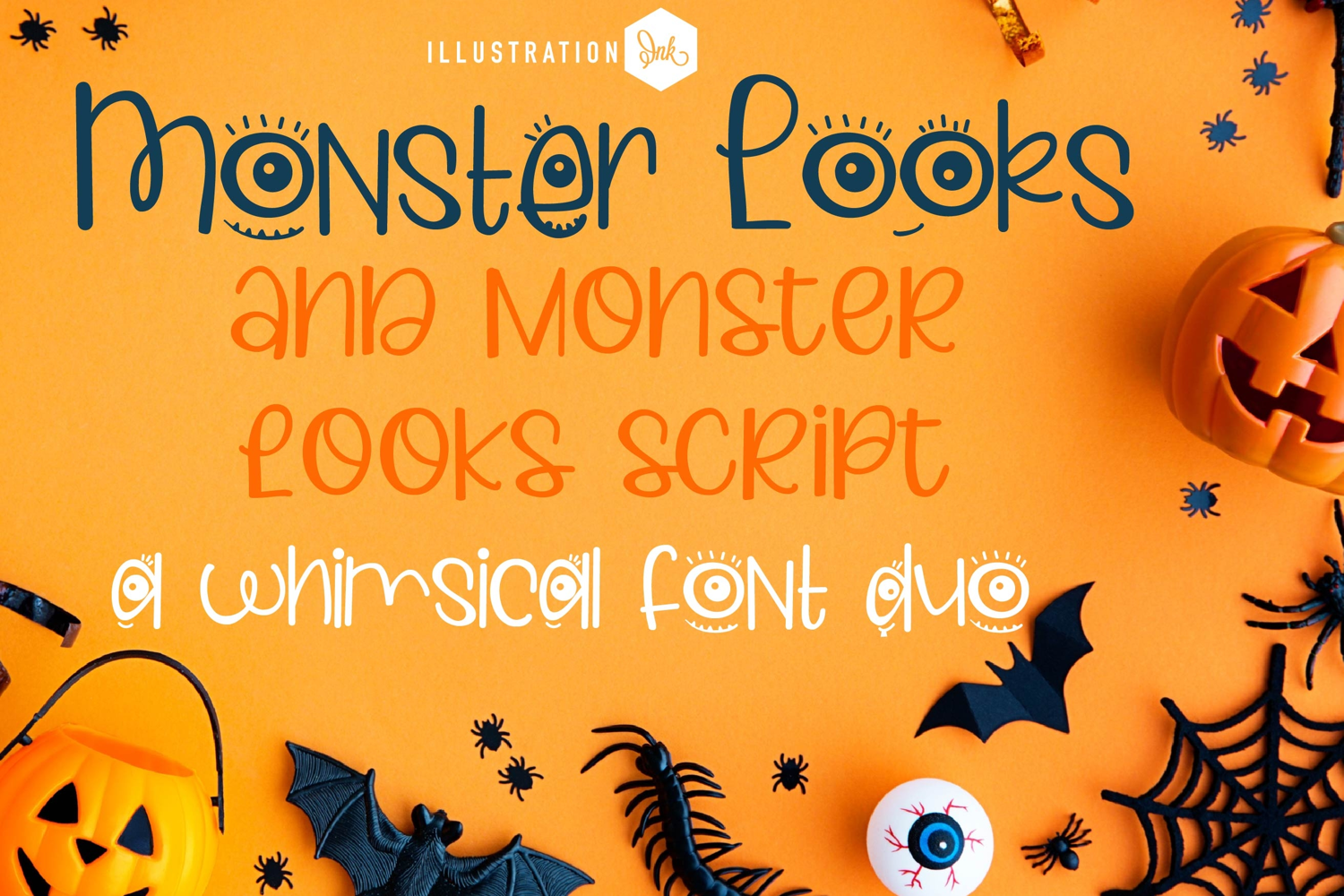
Monster Looks Font Duo
This hand-crafted font duo combines an eyeball infused print with a perfectly coordinated script. With all family members combined, you get 9 fonts all together!
Hand-crafted fonts can be either formal or informal, and they can be used for a variety of purposes. Some of the characteristics of handwritten fonts include: The letters are not perfectly uniform in size or shape. There may be slight variations in the spacing between letters and words. The font may have a "wiggly" or "squiggly" appearance. The font may be difficult to read at small sizes. Handwritten fonts can be a great way to add a casual touch to your designs. They can also be used to create a sense of nostalgia or whimsy. However, it is important to choose a handwritten font that is appropriate for the project you are working on. A formal handwritten font may not be appropriate for a casual invitation, while an informal handwritten font may not be appropriate for a corporate document.
• The letters are not perfectly uniform in size or shape.
• There may be slight variations in the spacing between letters and words.
• The font may have a "wiggly" or "squiggly" appearance.
• The font may be difficult to read at small sizes.